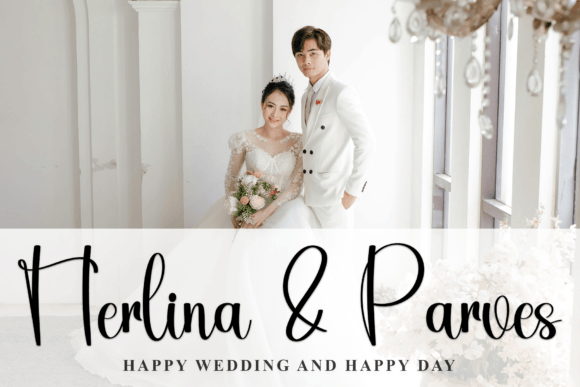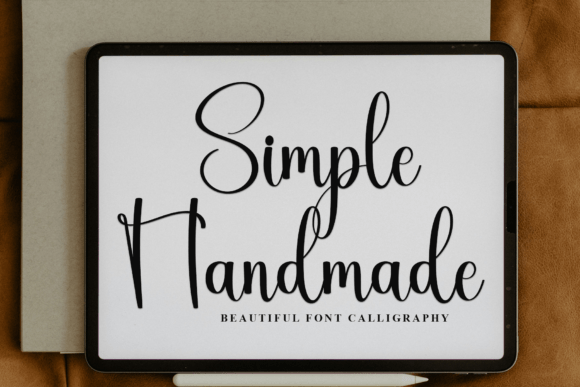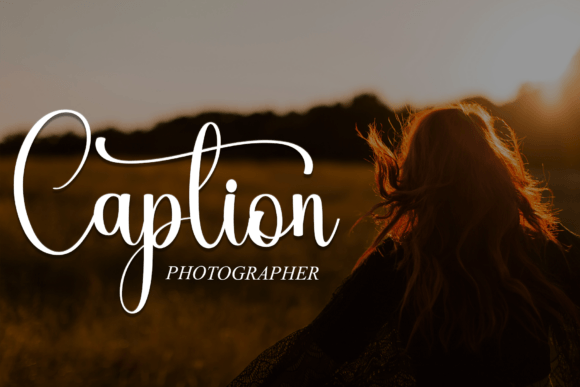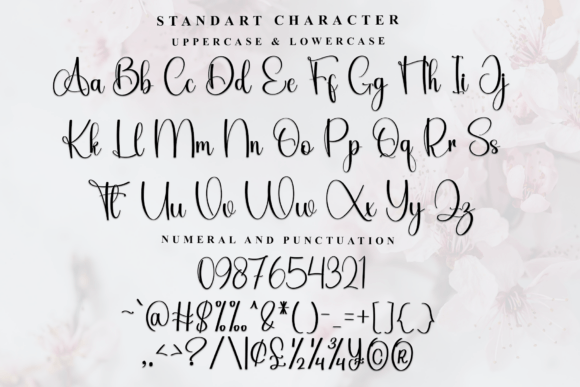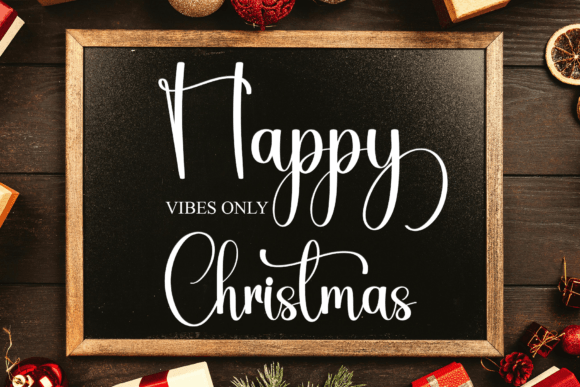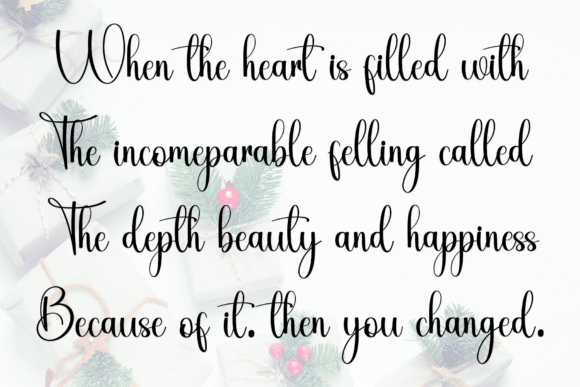
Introducing Christmas Homestay Font: The Perfect Blend of Classy and Contemporary
Are you looking for a font that exudes elegance and sophistication, yet feels fresh and modern? Look no further than Christmas Homestay Font! This beautiful and attractive font is sure to capture your heart with its classy calligraphic influences and contemporary twist. In this article, we’ll dive into the world of Christmas Homestay Font and explore its features, benefits, and uses.
A Beautiful and Attractive Font
Christmas Homestay Font is a stunning font that boasts a unique blend of traditional and modern elements. Its calligraphic influences are evident in its flowing lines and elegant curves, while its contemporary twist gives it a fresh and modern feel. This font is perfect for designers and crafters who want to add a touch of sophistication and elegance to their projects.
Classy Calligraphic Influences
One of the standout features of Christmas Homestay Font is its classy calligraphic influences. The font’s designer has expertly crafted each letter to evoke the feeling of traditional calligraphy, with flowing lines and elegant curves. This gives the font a sense of luxury and sophistication, making it perfect for high-end projects.
Contemporary and Fresh
While Christmas Homestay Font maintains its classy calligraphic influences, it also feels contemporary and fresh. The font’s modern twist gives it a youthful and energetic feel, making it perfect for projects that require a bit of whimsy and playfulness. Whether you’re designing a holiday card or a craft project, Christmas Homestay Font is sure to bring a touch of modern elegance to your work.
Bring Your Projects to the Highest Levels
With Christmas Homestay Font, you can take your projects to the highest levels! This font is perfect for a wide range of applications, from holiday cards and invitations to craft projects and digital designs. Its versatility and elegance make it a go-to font for designers and crafters who want to create stunning and sophisticated projects.
Christmas Homestay Font is a must-have for designers and crafters who want to add a touch of elegance and sophistication to their projects. Whether you’re creating holiday cards, invitations, or digital designs, this font is sure to impress. Its unique blend of traditional and modern elements makes it perfect for a wide range of applications, from traditional crafts to modern digital designs.
Key Features of Christmas Homestay Font
- Beautiful and attractive font with classy calligraphic influences
- Contemporary and fresh feel
- Perfect for holiday cards, invitations, and craft projects
- Versatile and elegant
- Suitable for both traditional and digital designs
Tips and Tricks for Using Christmas Homestay Font
Here are a few tips and tricks for using Christmas Homestay Font in your projects:
- Use it for headlines and titles to add a touch of elegance and sophistication
- Pair it with a simple font for body text to create a beautiful contrast
- Use it for digital designs, such as social media graphics and blog posts
In conclusion, Christmas Homestay Font is a beautiful and attractive font that is sure to capture your heart. Its unique blend of traditional and modern elements makes it perfect for a wide range of applications, from holiday cards and invitations to craft projects and digital designs. With its classy calligraphic influences and contemporary twist, Christmas Homestay Font is the perfect choice for designers and crafters who want to add a touch of elegance and sophistication to their projects.
So why wait? Fall in love with Christmas Homestay Font and bring your projects to the highest levels!